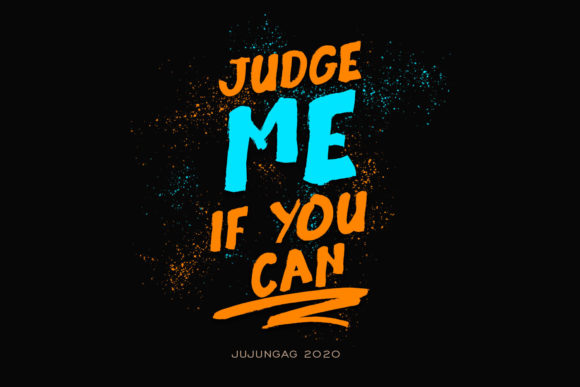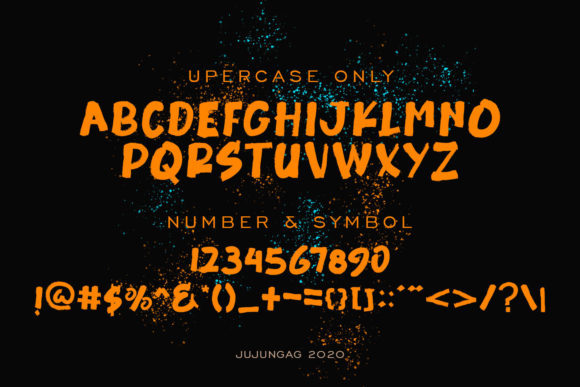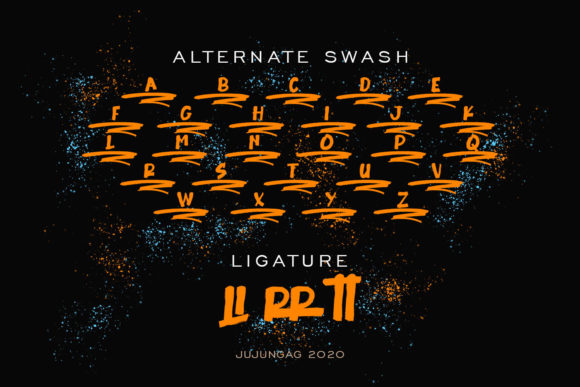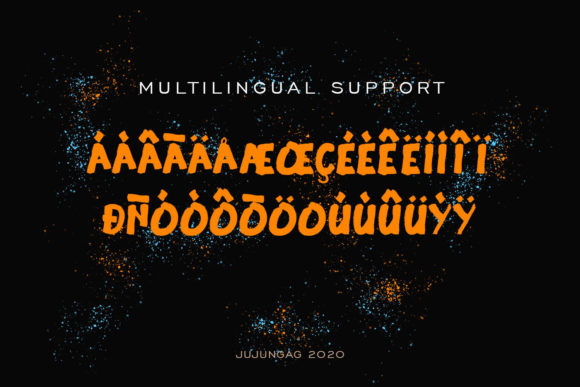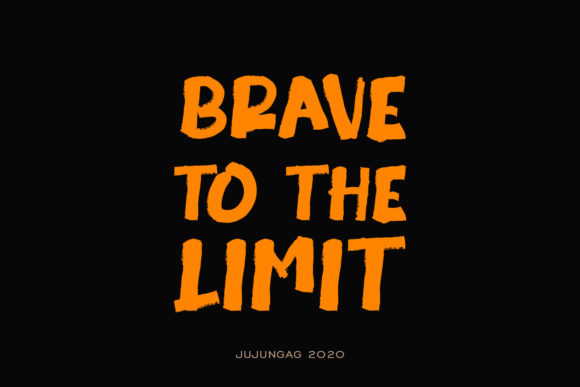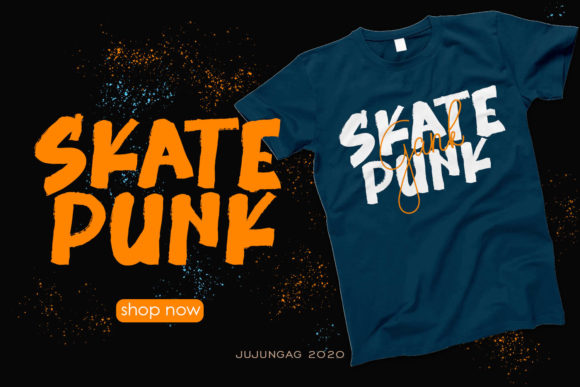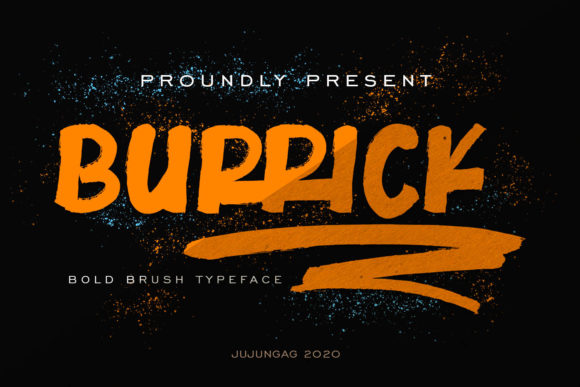
The Burrick Font: A Powerful and Authentic Brushed Display Font
Burrick is a brushed display font that features a unique blend of ruggedness and sophistication. Its bold and expressive letters make it perfect for branding, quotes, social media posts, posters, greeting invitations, and much more!
- ✨ Unique and authentic character: Burrick’s brushed texture gives it a one-of-a-kind look that’s hard to find in other fonts.
- ✅ High versatility: This font can be used for a wide range of projects, from bold headlines to social media graphics.
- 💯 Ease of use: Burrick is easy to read, even at smaller sizes, making it perfect for body text and captions.
While Burrick is an amazing font, it’s not perfect. Here are a few things to keep in mind:
- ⚠️ Limited use in formal contexts: Burrick’s bold and expressive nature makes it less suitable for formal documents or traditional designs.
- 🤔 Kerning issues: As with any font, some users may experience kerning issues, especially when using Burrick at very large or very small sizes.
The Story Behind Burrick
Burrick was designed by a team of creatives who wanted to create a font that would capture the essence of raw, unbridled energy. Inspired by the world of street art and graffiti, Burrick’s designers aimed to create a font that would be both bold and authentic. The result is a font that’s perfect for designers, crafters, and creative hobbyists who want to add a touch of personality to their work.
Q: What is Burrick font?
A: Burrick is a brushed display font that features a powerful and authentic character.
Q: What can I use Burrick for?
A: Burrick is perfect for branding, quotes, social media posts, posters, greeting invitations, and much more!
Q: Is Burrick easy to read?
A: Yes, Burrick is easy to read, even at smaller sizes, making it perfect for body text and captions.